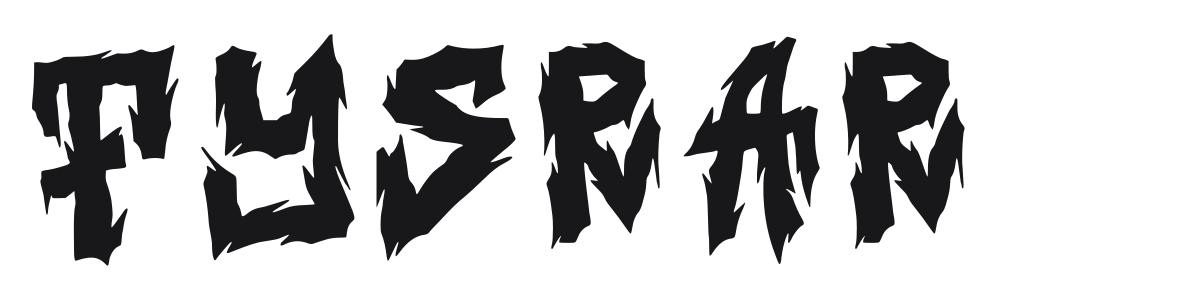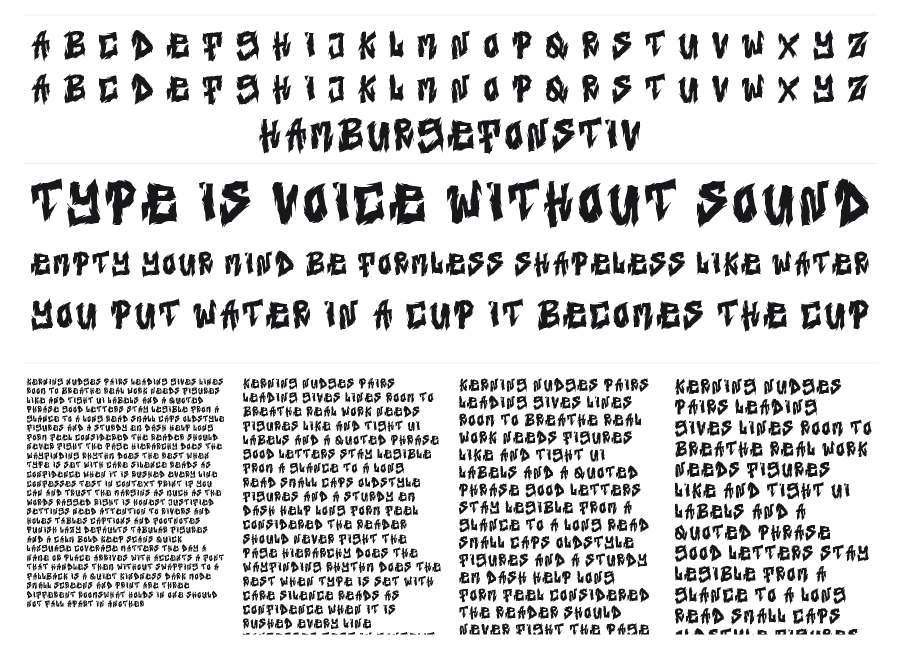
Fysrar
Fysrar is a heavy, condensed display font built entirely around distress and destruction. Every character is torn up with jagged edges, splatter marks, and rough textures that make it feel like it was ripped from a horror poster or carved into something that didn't survive. It hits hard at large sizes where the damage reads as intentional craft.